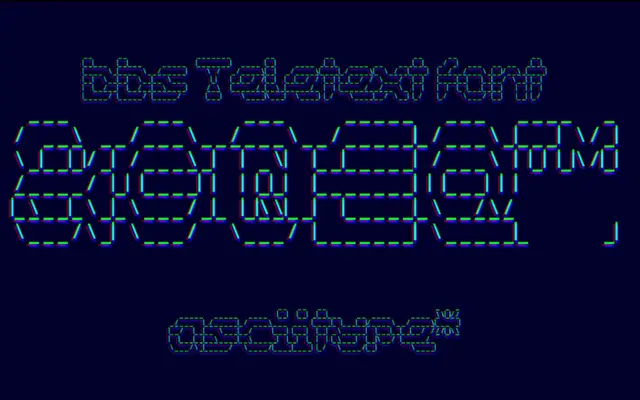
BD AsciiMax
Type Different · 1999
A single-weight display font that recreates the ASCII art lettering style of late-1970s and early-1980s bulletin board systems.
Each letterform is built from text characters arranged to simulate the kind of logotypes and titles that BBS and Usenet users assembled within the constraints of early computer hardware. Released in 1999, the face covers Basic Latin, Latin-1 Supplement and a handful of additional glyphs including Greek and currency symbols. Its appeal is primarily archival and nostalgic, suited to retro computing aesthetics and period-appropriate branding.
A display typeface that simulates ASCII art typography, where letterforms are constructed from text characters to mimic the visual output of BBS and Usenet systems. This places it firmly in the display category as a novelty or period-style face rather than a functional text or mono font.